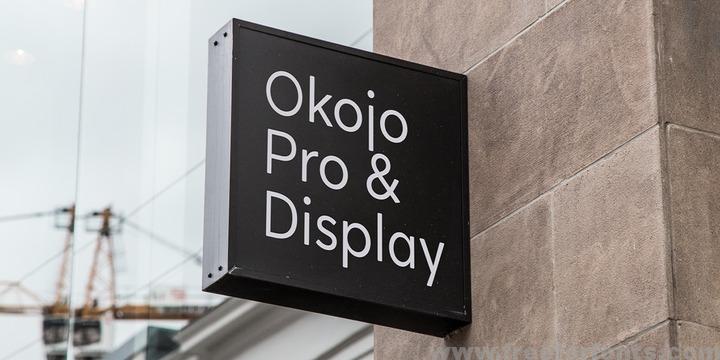
Okojo Pro Font
Okojo Pro Font is perfect for Japanese-inspired branding, minimalist design projects, zen meditation centers, modern sushi restaurant logos, Asian cultural events, contemporary art galleries, clean tech company materials, sophisticated packaging design, tranquil spa branding, and serene wellness campaigns.
Okojo Pro Font is exciting because it embodies the essence of Japanese design philosophy through clean, harmonious letterforms that convey tranquility, precision, and minimalist beauty with sophisticated simplicity. This thoughtfully designed typeface combines traditional Japanese aesthetic principles with contemporary international functionality, making it perfect for brands that want to communicate zen-like calm, professional excellence, and refined minimalism.
The Okojo Pro Font family includes multiple weights with Japanese-inspired character styling, featuring clean geometric elements and minimalist design variations. The font showcases zen design details, harmony-optimized proportions, and serene character characteristics that create a comprehensive typographic system for peaceful and professionally-focused brand applications.
Okojo Pro Font Free Download provides designers with access to premium Japanese-inspired typography that brings authentic zen character to contemporary minimalist design projects. This expertly crafted typeface has been developed to capture the tranquil beauty and professional precision of Japanese design while ensuring optimal performance in modern applications. The font's serene character and minimalist appeal make it ideal for wellness brands and sophisticated service providers.
The zen sophistication of Okojo Pro Font makes it an invaluable tool for wellness centers, design agencies, and professional service providers that need typography capable of communicating calm authority and Japanese-inspired excellence. The font's tranquil character helps establish connections with audiences seeking peaceful experiences, mindful services, and sophisticated simplicity that embodies the beauty of Japanese aesthetic philosophy.
Spa centers, meditation studios, and Japanese restaurants consistently choose Okojo Pro Font for its ability to convey zen tranquility and Japanese sophistication through typography. The font excels in applications where establishing peaceful credibility and minimalist appeal are essential to brand positioning, making it particularly effective for wellness services, Japanese culture, and mindful lifestyle brands targeting serenity-seeking consumers.
This font's comprehensive character set includes Japanese-inspired letterforms, zen numerals, minimalist punctuation marks, and harmony symbols that support authentic peaceful typography composition. The consistent tranquil styling maintains the Japanese aesthetic theme throughout all characters while ensuring professional readability across all wellness and minimalist design projects requiring Okojo Pro Font Free Download functionality.